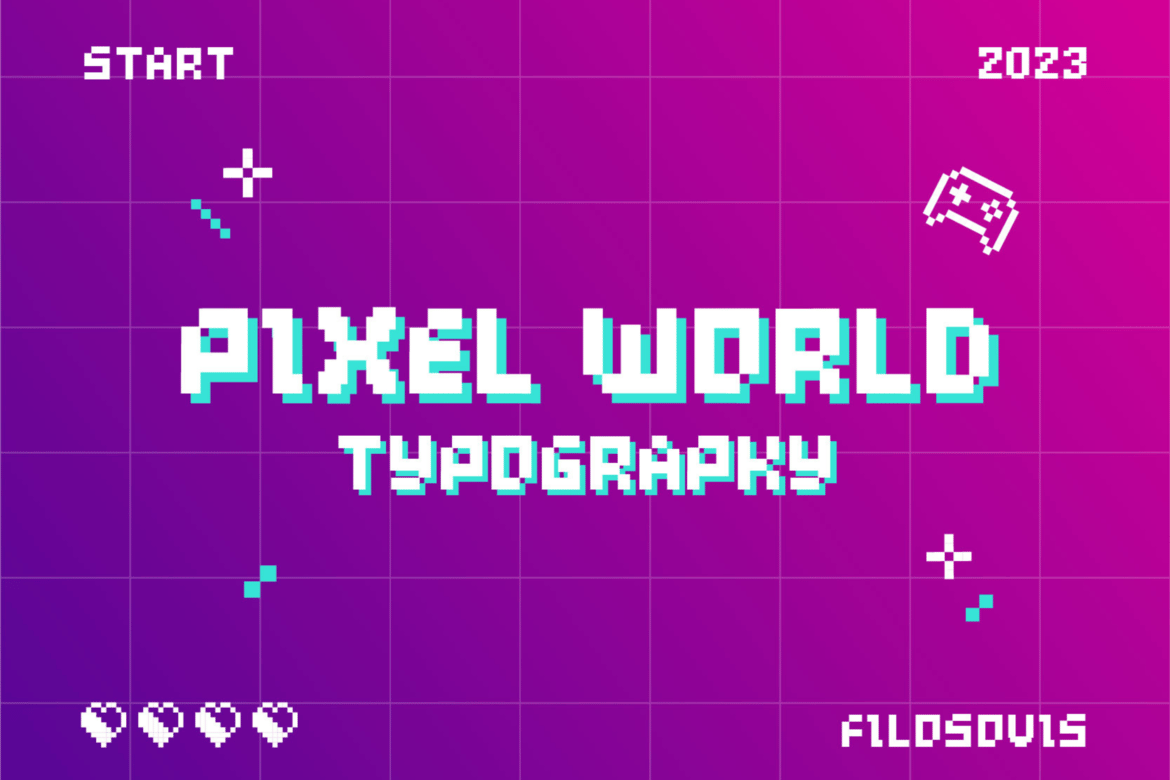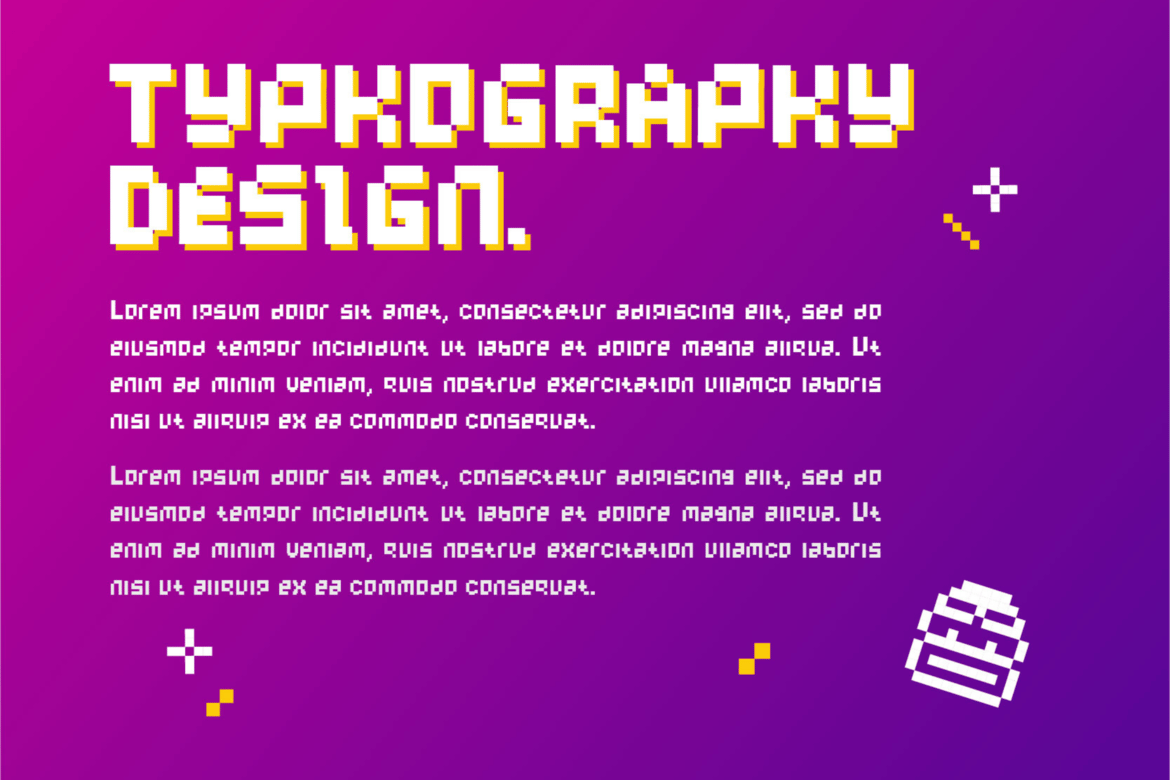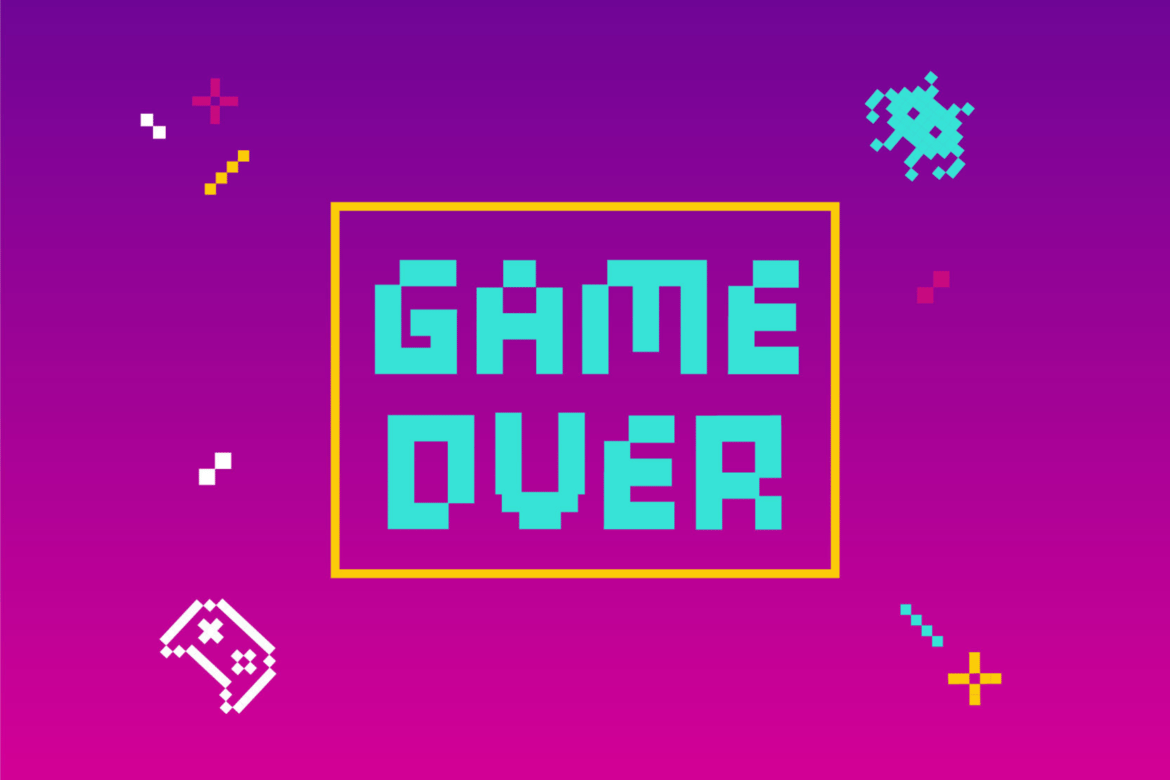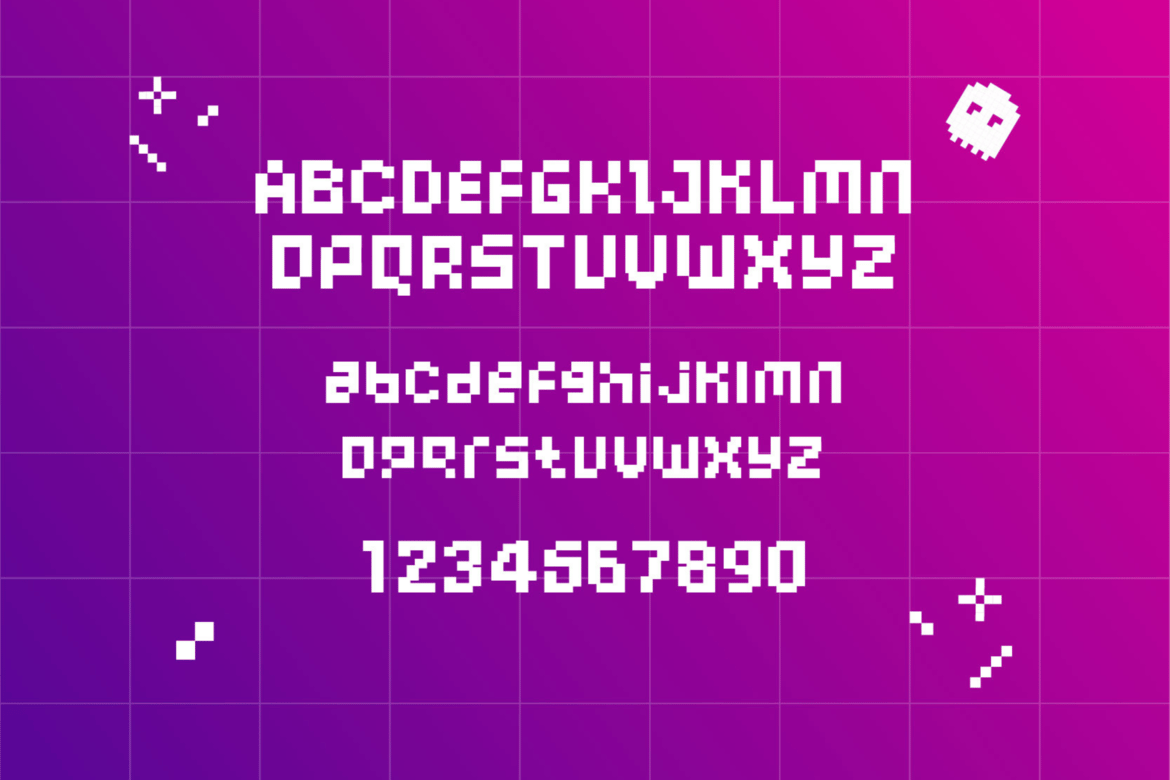
Takotak | The Perfect Pixelated Font
Description
For your creative project, use the Takotak-themed The Perfect Pixelated Font. The Perfect Pixelated Font is appropriate for every kind of design you produce, including greeting cards, posters, logos, and branding.